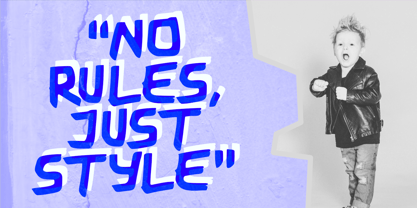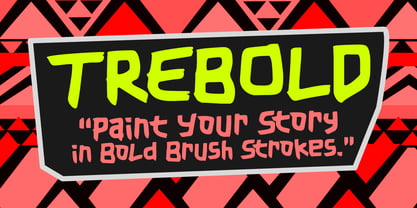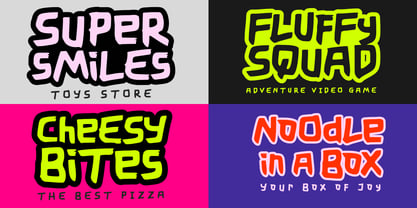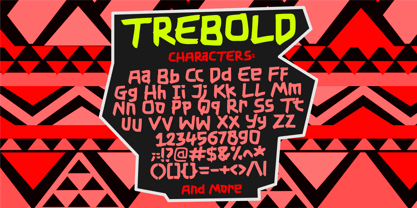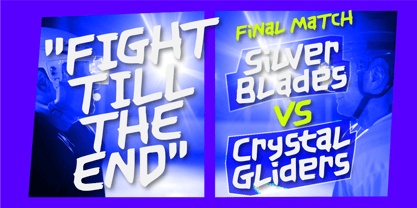
Trebold
by Epiclinez
Trebold is a bold brush font designed to make a strong visual statement. With its rough, textured strokes and powerful style, this typeface brings energy and attitude to every project. Perfectly crafted for headlines, logos, gaming titles, and movie posters, Trebold combines raw hand-painted vibes with modern versatility.
Whether you’re working on branding, product packaging, social media graphics, advertising, or cinematic designs, Trebold delivers the boldness and character your project needs. Its thick brush details create a sense of movement and intensity, making it ideal for sports branding, music covers, streetwear, and action-themed designs.
Trebold ensures your text never goes unnoticed – bold, fearless, and ready for the spotlight.